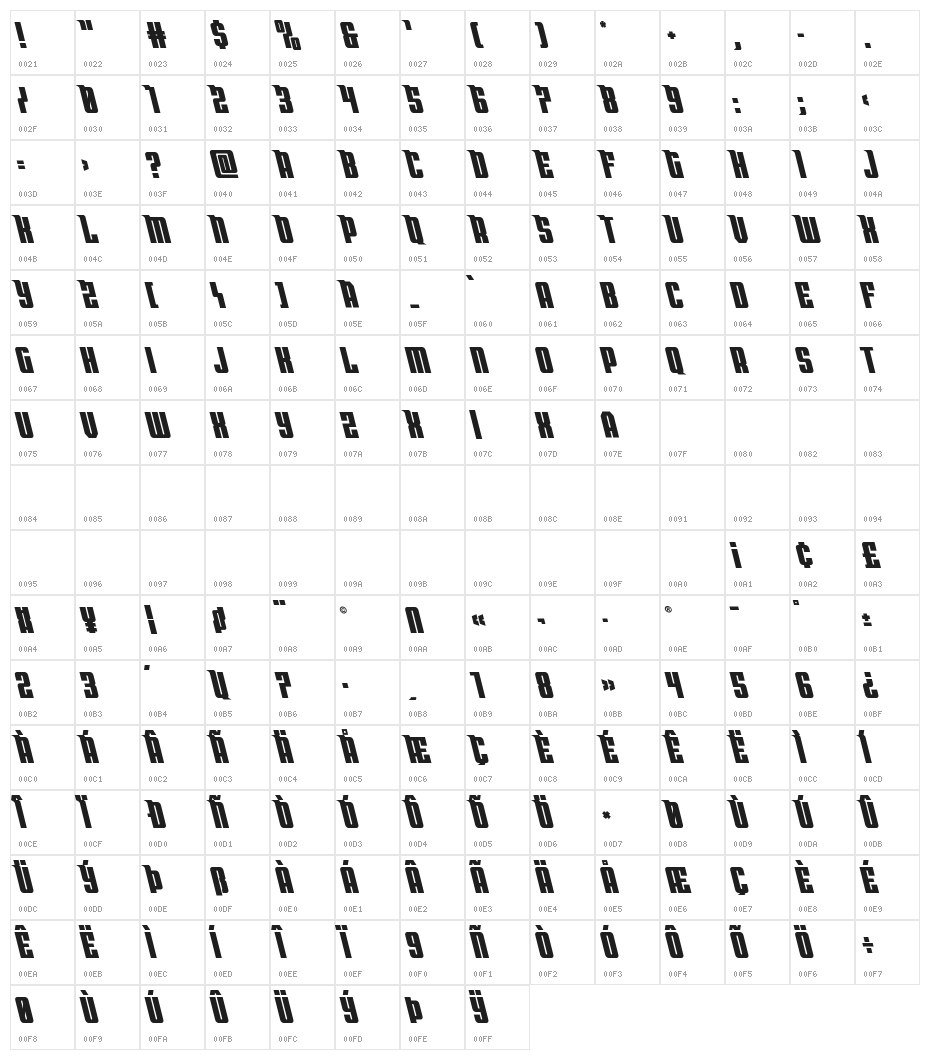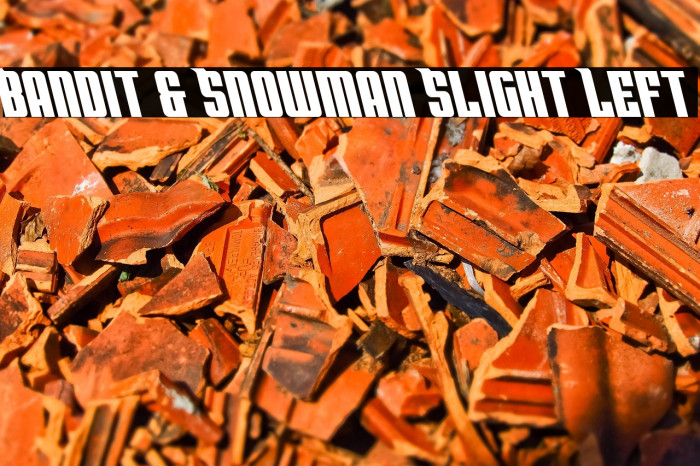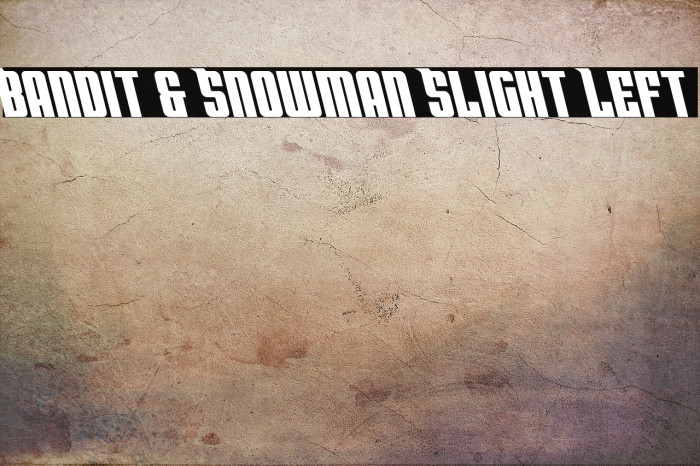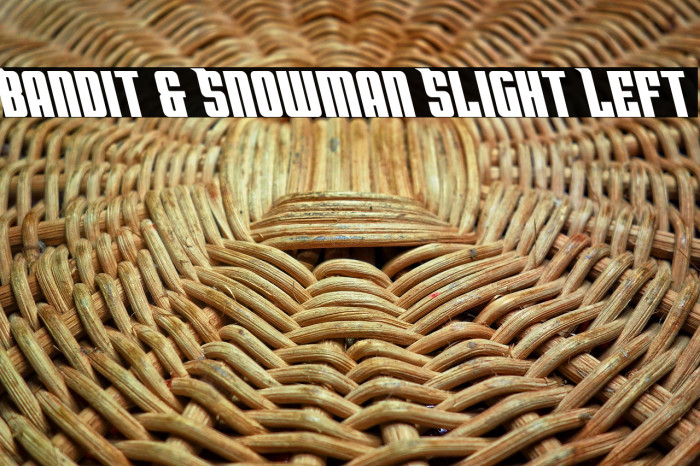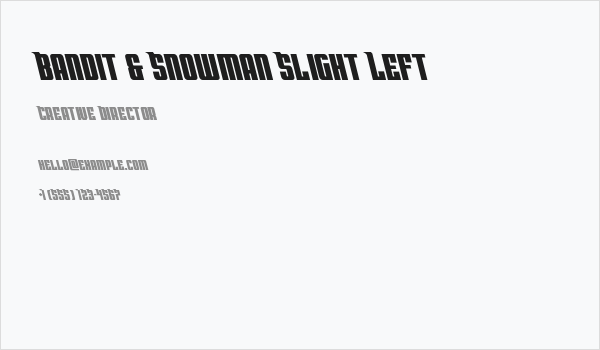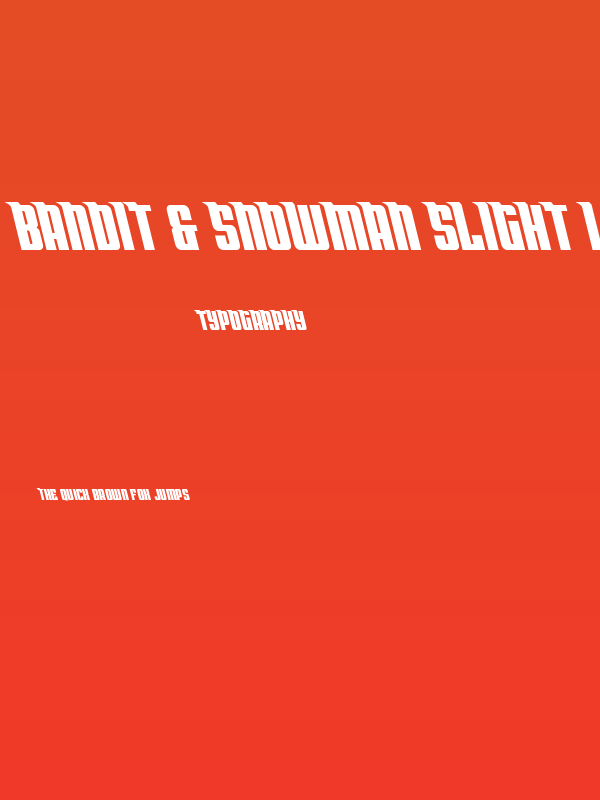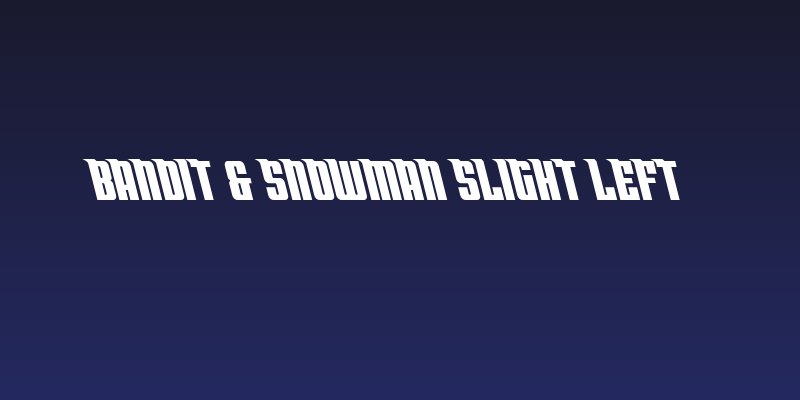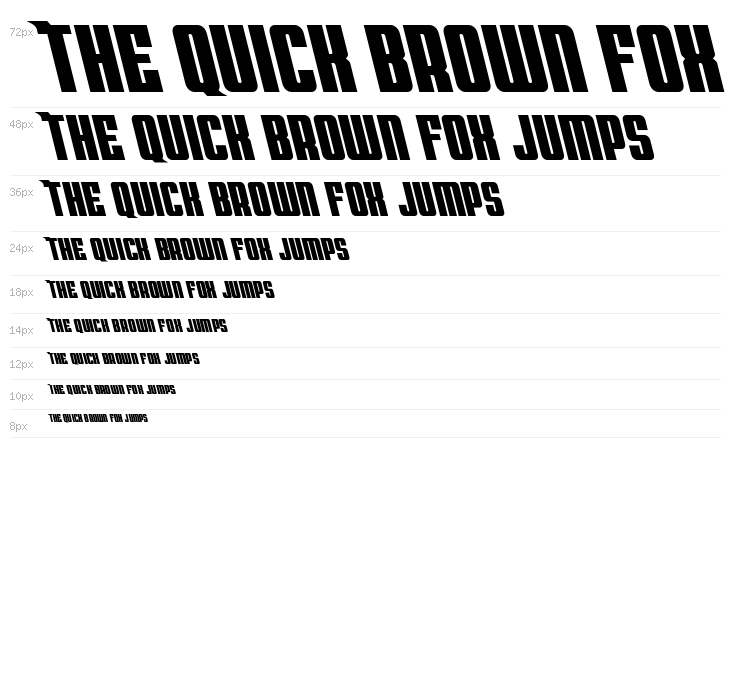
Bandit & Snowman Slight Left Font
Bandit & Snowman Slight Left Description
This font features a bold and impactful design with a slightly condensed structure. The characters are sharply angled, giving a dynamic and energetic feel. The uppercase letters are uniform in height, while the lowercase letters maintain a consistent style, enhancing readability. The numbers are distinct and easily distinguishable, complementing the overall bold aesthetic. Special characters are crafted with the same attention to detail, ensuring they integrate seamlessly with the rest of the font. The strong geometric shapes and thick strokes make it ideal for attention-grabbing designs.
| Proposed Projects | Ideal for posters, logos, sports branding, and any project requiring a strong visual impact. |